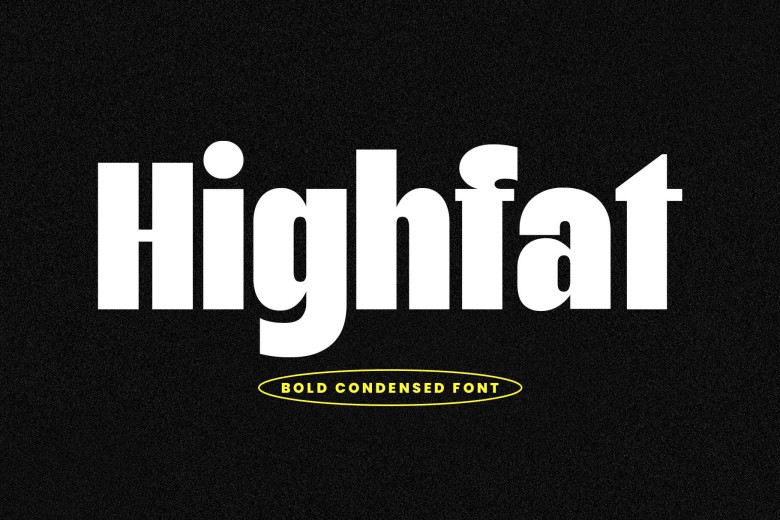
Highfat Font
Highfat is a truly a bold condensed typeface, created with respect to the principles of retro bold typography and contemporary sans serif fonts, thus, it became the fatty condensed typeface. Highfat is best used for displaying a thickness, a more solid feel that will add to the overall thickness of your design.
This font has stylistic alternates, and ligatures, which can be interchanged and combined in order to create happy looking letters. For impactful logos, headlines, branding, stickers, posters, flyers or to create an impact on websites, Highfat is perfect.
Highfat Sans Serif Font